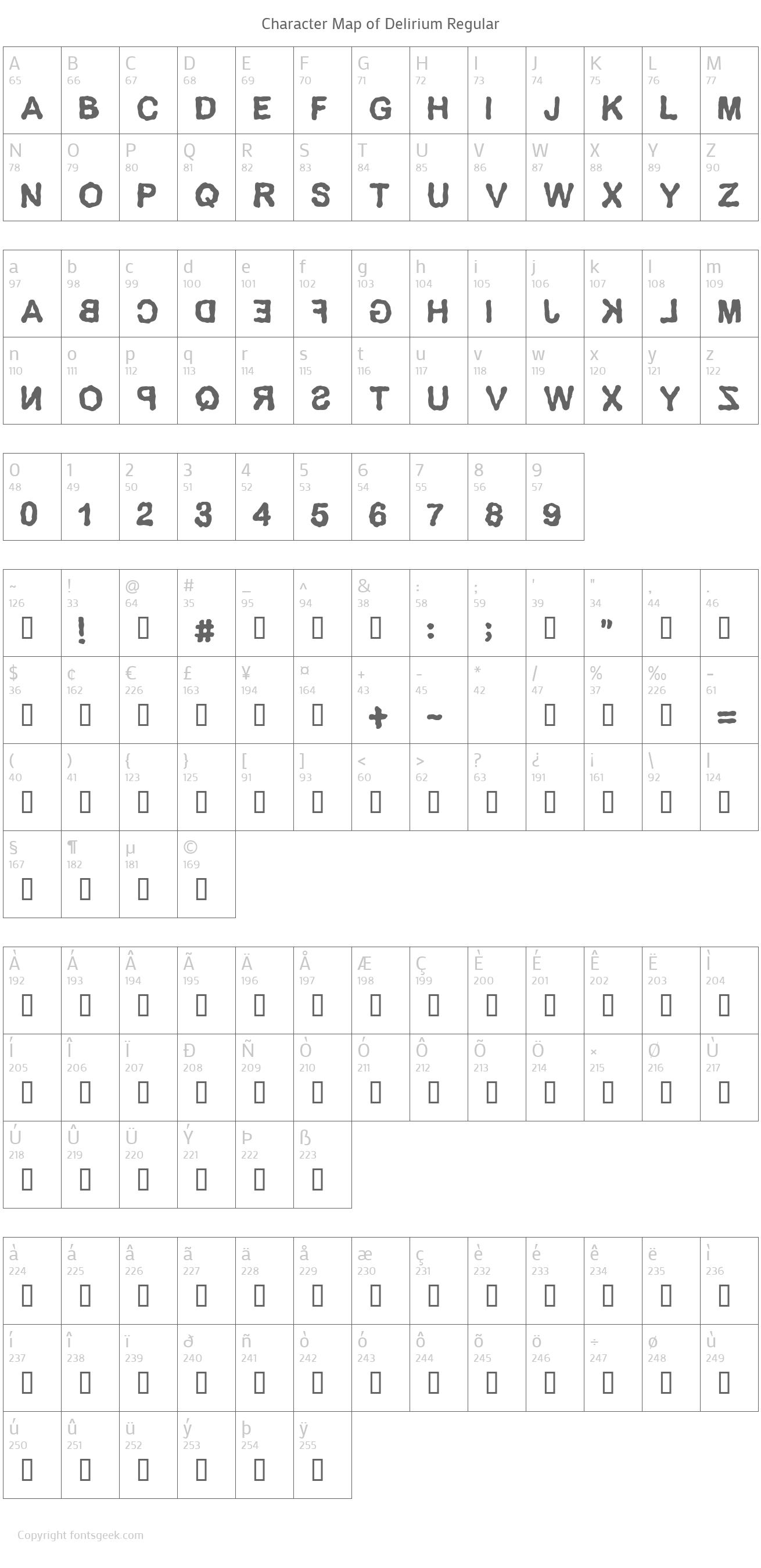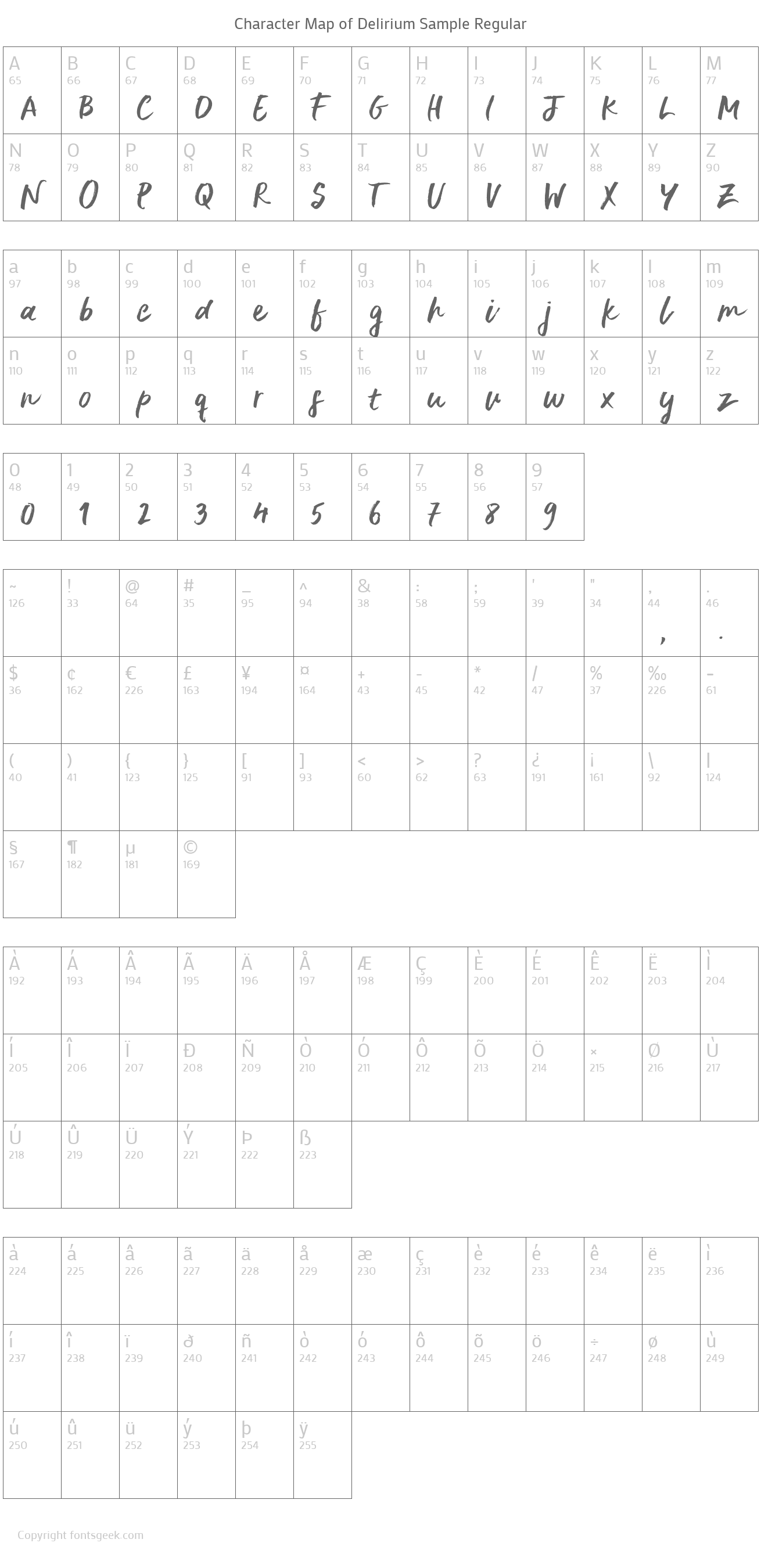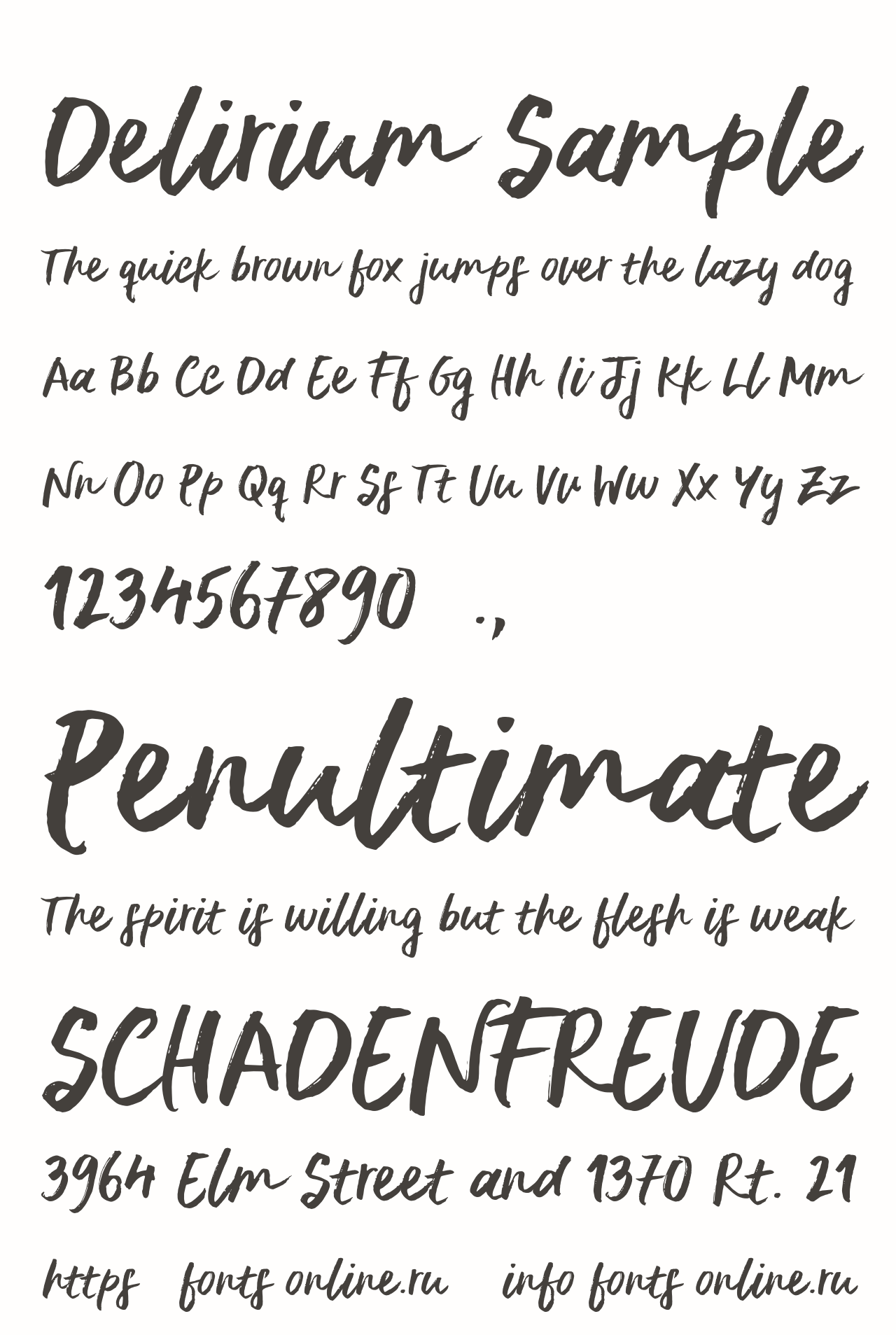
Delirium Font . Delirium is a custom font with 79 glyphs that creates a distorted and fancy effect. This is an updated version of this font. It is free for personal use and available for purchase for commercial use. Fty delirium ncv font is a tall and gothic font with 2 styles: Delirium ncv is a narrow, gothic, gaspipe font family with a vintage look, stance and feel. Delirium is a textured brush font duo, with: See examples, license info and related tags. Neon inline effects have been added to delirium neon ncv, enhancing the font's overall versatility. Neon inline effects have been added to delirium neon. It is free for personal use and can be downloaded from dafont.com, where it was first seen before 2005. Try it out for free (for private use) with this sample version! Delirium ncv is a narrow, gothic, gaspipe font family with a vintage look, stance and feel. Download delirium font · free for personal use · please note!
Delirium is a textured brush font duo, with: It is free for personal use and can be downloaded from dafont.com, where it was first seen before 2005. Try it out for free (for private use) with this sample version! See examples, license info and related tags. Delirium ncv is a narrow, gothic, gaspipe font family with a vintage look, stance and feel. Delirium ncv is a narrow, gothic, gaspipe font family with a vintage look, stance and feel. Download delirium font · free for personal use · please note! Neon inline effects have been added to delirium neon. Delirium is a custom font with 79 glyphs that creates a distorted and fancy effect. Neon inline effects have been added to delirium neon ncv, enhancing the font's overall versatility.
Delirium Font It is free for personal use and can be downloaded from dafont.com, where it was first seen before 2005. Try it out for free (for private use) with this sample version! It is free for personal use and available for purchase for commercial use. Fty delirium ncv font is a tall and gothic font with 2 styles: Neon inline effects have been added to delirium neon ncv, enhancing the font's overall versatility. Delirium is a custom font with 79 glyphs that creates a distorted and fancy effect. Delirium is a textured brush font duo, with: Delirium ncv is a narrow, gothic, gaspipe font family with a vintage look, stance and feel. Neon inline effects have been added to delirium neon. Download delirium font · free for personal use · please note! It is free for personal use and can be downloaded from dafont.com, where it was first seen before 2005. See examples, license info and related tags. This is an updated version of this font. Delirium ncv is a narrow, gothic, gaspipe font family with a vintage look, stance and feel.
Delirium NCV Font FontMagic Delirium Font Neon inline effects have been added to delirium neon ncv, enhancing the font's overall versatility. This is an updated version of this font. Neon inline effects have been added to delirium neon. Delirium is a custom font with 79 glyphs that creates a distorted and fancy effect. Delirium ncv is a narrow, gothic, gaspipe font family with a vintage look,. Delirium Font.
Delirium Brush Font Free Fonts Delirium Font It is free for personal use and can be downloaded from dafont.com, where it was first seen before 2005. Delirium ncv is a narrow, gothic, gaspipe font family with a vintage look, stance and feel. Fty delirium ncv font is a tall and gothic font with 2 styles: Delirium is a custom font with 79 glyphs that creates a distorted. Delirium Font.
Delirium Sample Font by justlikethistrain FontSpace Delirium Font It is free for personal use and available for purchase for commercial use. Delirium ncv is a narrow, gothic, gaspipe font family with a vintage look, stance and feel. Delirium is a textured brush font duo, with: Download delirium font · free for personal use · please note! Delirium is a custom font with 79 glyphs that creates a distorted. Delirium Font.
Delirium NCV font by Fontry FontRiver Delirium Font Neon inline effects have been added to delirium neon. It is free for personal use and available for purchase for commercial use. This is an updated version of this font. Delirium is a textured brush font duo, with: See examples, license info and related tags. Delirium is a custom font with 79 glyphs that creates a distorted and fancy effect.. Delirium Font.
DELIRIUM NCV Font Family Download Free for Desktop & font Delirium Font This is an updated version of this font. Download delirium font · free for personal use · please note! Delirium ncv is a narrow, gothic, gaspipe font family with a vintage look, stance and feel. Delirium is a custom font with 79 glyphs that creates a distorted and fancy effect. See examples, license info and related tags. Delirium ncv is. Delirium Font.
Delirium NCV font Font Tr Delirium Font Delirium ncv is a narrow, gothic, gaspipe font family with a vintage look, stance and feel. Delirium ncv is a narrow, gothic, gaspipe font family with a vintage look, stance and feel. It is free for personal use and available for purchase for commercial use. Neon inline effects have been added to delirium neon ncv, enhancing the font's overall versatility.. Delirium Font.
Delirium Font Download Delirium Font It is free for personal use and can be downloaded from dafont.com, where it was first seen before 2005. Try it out for free (for private use) with this sample version! This is an updated version of this font. Delirium ncv is a narrow, gothic, gaspipe font family with a vintage look, stance and feel. Delirium ncv is a narrow,. Delirium Font.
Delirium Font · 1001 Fonts Delirium Font See examples, license info and related tags. Download delirium font · free for personal use · please note! This is an updated version of this font. Neon inline effects have been added to delirium neon. Neon inline effects have been added to delirium neon ncv, enhancing the font's overall versatility. Delirium ncv is a narrow, gothic, gaspipe font family with. Delirium Font.
Delirium Calligraphy Font Free Download Creativetacos Delirium Font Delirium ncv is a narrow, gothic, gaspipe font family with a vintage look, stance and feel. Neon inline effects have been added to delirium neon. Delirium is a textured brush font duo, with: It is free for personal use and available for purchase for commercial use. Download delirium font · free for personal use · please note! Delirium is a. Delirium Font.
Delirium Fonts Shmonts Delirium Font Neon inline effects have been added to delirium neon ncv, enhancing the font's overall versatility. Fty delirium ncv font is a tall and gothic font with 2 styles: Neon inline effects have been added to delirium neon. It is free for personal use and can be downloaded from dafont.com, where it was first seen before 2005. Try it out for. Delirium Font.